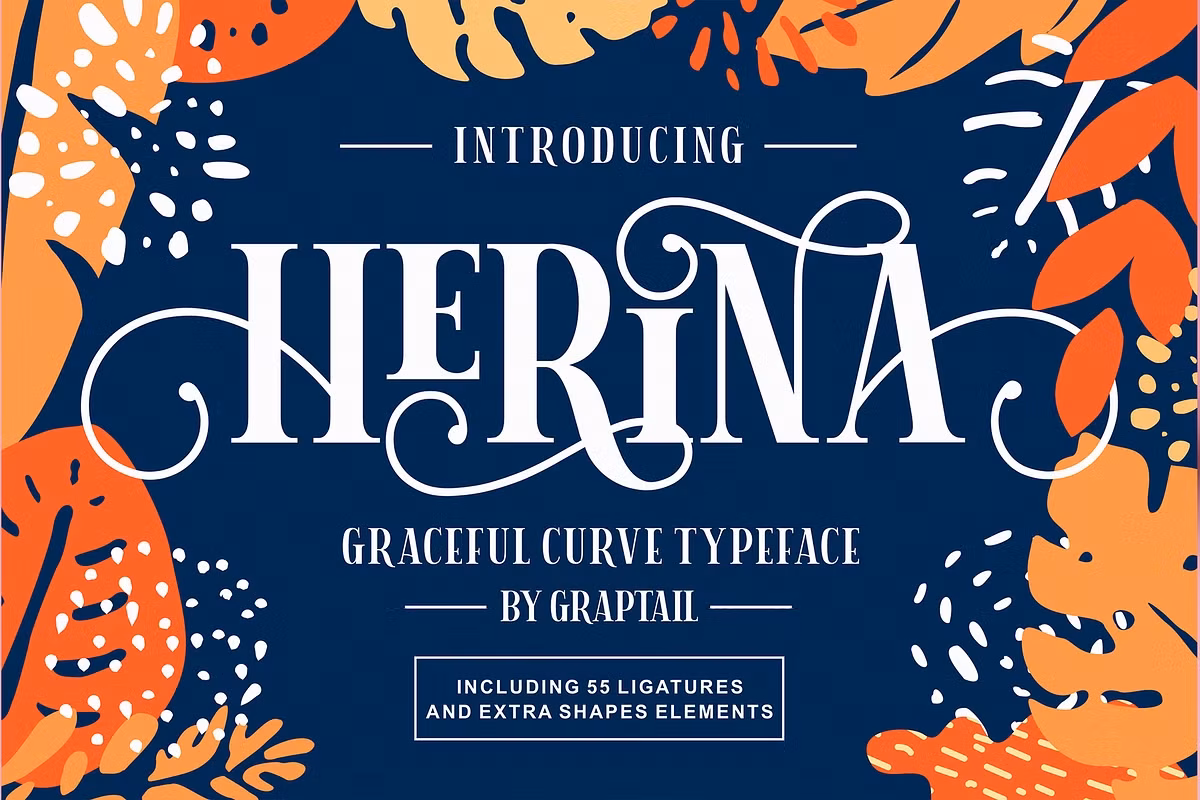
You must purchase this font for commercial use. However, you can download Herina Font + Extra Free Download for testing purposes. Herina is a luxurious serif typeface with a bold presence and artistic elegance, designed to make a statement in high-end branding, editorial layouts, fashion campaigns, packaging, and modern websites. Paired with decorative extras, this font package gives you everything you need to create visually striking and cohesive designs.
Herina features strong, confident letterforms with high contrast and beautifully crafted curves, giving your typography a premium, sophisticated feel. The included extras—such as ornamental elements or ligatures—provide added flexibility for custom headlines, logos, and visual compositions. Whether you're designing for a luxury brand or a stylish publication, Herina Font + Extra Free Download offers you the opportunity to experiment with its aesthetic before any commercial use. Don’t forget to purchase the correct license for business or client-related work. Download Herina Font + Extra Free Download today and elevate your designs with bold elegance and creative versatility.